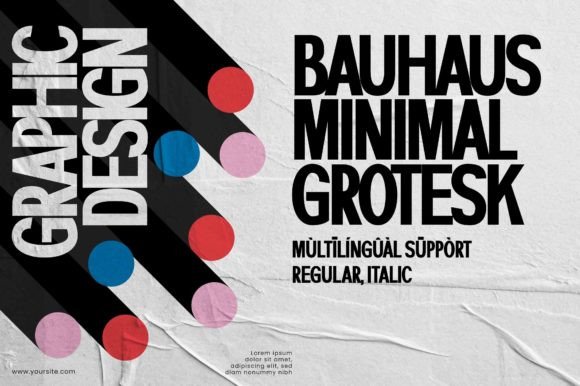
Bauhaus Font: The Epitome of Minimalistic Design
In the realm of typography, few fonts have made as significant an impact as the Bauhaus font. This clean, tall, and grotesque sans serif typeface has become a staple in the design world, and for good reason. Its amazing minimalistic appearance renders it a vital choice when you want to opt-in for a clean, minimalistic design. In this article, we’ll delve into the world of Bauhaus font, exploring its characteristics, uses, and why it’s a favorite among designers and crafters.
What is Bauhaus Font?
The Bauhaus font, also known as Bauhaus typeface, is a sans serif font that originated from the Bauhaus school of art and design in Germany. The school, which operated from 1919 to 1933, was a hub for avant-garde artists, designers, and architects who sought to revolutionize the way art and design were created. The Bauhaus font is a product of this movement, embodying the principles of minimalism, simplicity, and functionality.
Characteristics of Bauhaus Font
The Bauhaus font is characterized by its:
- Clean and minimalist appearance: The font features a straightforward, uncomplicated design, making it perfect for designs that require a subtle touch.
- Tall and slender lines: The font’s tall lines give it a sense of elegance and sophistication, making it suitable for high-end designs.
- Grotesque sans serif: The font’s sans serif design and grotesque features give it a unique, industrial feel.
Uses of Bauhaus Font
The Bauhaus font is an incredibly versatile typeface that can be used in various contexts, including:
- Packaging design: The font’s clean and minimalist design makes it perfect for packaging designs that require a simple, yet effective look.
- Product design: The font’s industrial feel and elegant lines make it suitable for product designs that require a modern, sophisticated look.
- Die-cutting design: The font’s simple design makes it ideal for die-cutting designs, where intricate details are not necessary.
- Fashion design: The font’s elegant lines and minimalist appearance make it a popular choice for fashion designs, such as logos, labels, and branding materials.
- Perfume and cosmetics design: The font’s sophisticated feel and clean design make it perfect for perfume and cosmetics designs, where elegance and luxury are paramount.
Why Designers and Crafters Love Bauhaus Font
Designers and crafters love the Bauhaus font for several reasons:
- Its versatility: The font can be used in various contexts, from packaging design to fashion design.
- Its simplicity: The font’s clean and minimalist design makes it easy to pair with other design elements.
- Its elegance: The font’s tall, slender lines give it a sense of sophistication and elegance.
- Its industrial feel: The font’s grotesque features give it a unique, industrial feel that adds a touch of modernity to designs.
Tips for Using Bauhaus Font
Here are some tips for using the Bauhaus font effectively:
- Pair it with bold colors: The font’s minimalist design makes it perfect for pairing with bold, bright colors.
- Use it for headlines: The font’s tall lines and elegant appearance make it perfect for headlines and titles.
- Experiment with different sizes: The font’s versatility makes it suitable for use in various sizes, from small text to large headlines.
In conclusion, the Bauhaus font is a timeless typeface that has become a staple in the design world. Its clean, minimalist appearance, tall lines, and grotesque features make it a versatile font that can be used in various contexts. Whether you’re a designer, crafter, or simply someone who appreciates good design, the Bauhaus font is definitely worth exploring. Its elegance, simplicity, and industrial feel make it a vital choice for anyone looking to add a touch of sophistication and modernity to their designs.